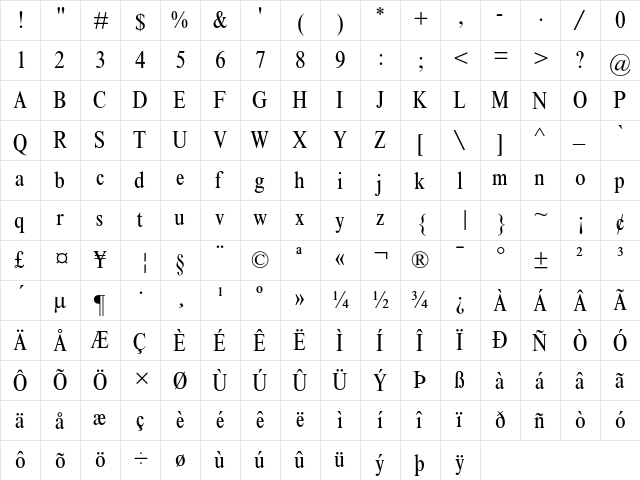
Times Condensed
Design Context for Times Typeface
Times offers clean, dependable letterforms without strong stylistic allegiance, making it a practical choice for designers who need flexibility. The condensed width makes it efficient for tight spaces without sacrificing legibility.